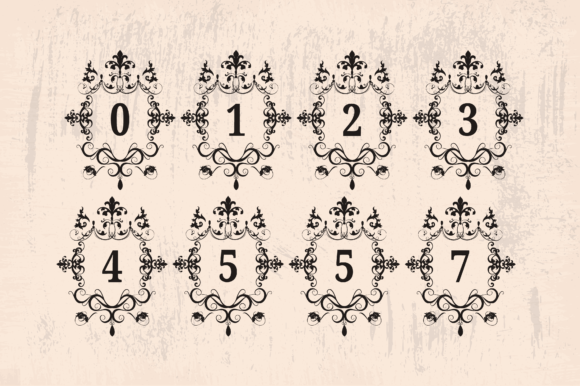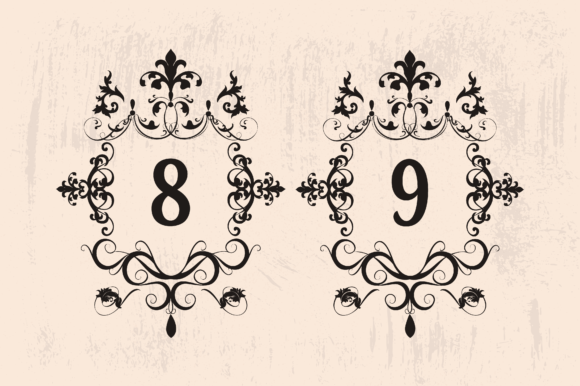
Introduction to Shabby Chic Flourishes Monograms Font Font
Fonts play a crucial role in design, and the Shabby Chic Flourishes Monograms Font font is a typeface that brings both character and versatility to any project. Whether you’re working on a branding project, a website, or a print design, the Shabby Chic Flourishes Monograms Font font offers a unique style that can elevate your work.
Shabby chic flourishes monograms is a beautiful decorative font designed to help you generate multiple dings by typing capital letters and numbers.
It was thought to complement shabby contexts, but it can be used with various projects and designs All you need to do is to determine which colors and textures to apply so you can obtain the desired effect.
Key Features of Shabby Chic Flourishes Monograms Font Font
Why Choose Shabby Chic Flourishes Monograms Font Font?
The Shabby Chic Flourishes Monograms Font font is more than just a typeface – it’s a design tool that helps you communicate your message with style and clarity. Its unique character set and versatile design make it suitable for a wide range of applications, from elegant invitations to bold headlines.
With its carefully crafted letterforms and balanced proportions, the Shabby Chic Flourishes Monograms Font font ensures readability and visual appeal across all mediums.
What makes Shabby Chic Flourishes Monograms Font font special?
The Shabby Chic Flourishes Monograms Font font stands out with its unique design, exceptional readability, and versatility across various design applications.